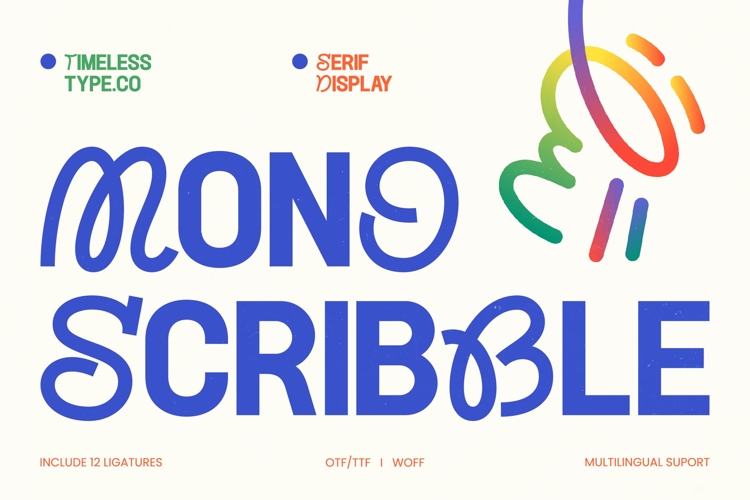
Mono Scribble - Experimental Serif Display
Redefine the boundaries of modern typography with an avant-garde edge that captures the imagination. Mono Scribble - Experimental Serif Display is a masterclass in contemporary aesthetics, blending fluid, organic linework with structured, high-impact serif forms. This display font creates a unique visual tension that is both sophisticated and daring, making it an essential tool for designers looking to break away from traditional type constraints and deliver a premium aesthetic.
Elevate your brand identity with a typeface designed specifically for standout visibility and professional distinction. Mono Scribble - Experimental Serif Display is the perfect choice for luxury branding, editorial design, and high-end packaging where a distinctive personality is required. Whether applied to fashion magazine mastheads or modern art gallery signage, this font ensures your message is delivered with creative flair and unmatched visual authority.